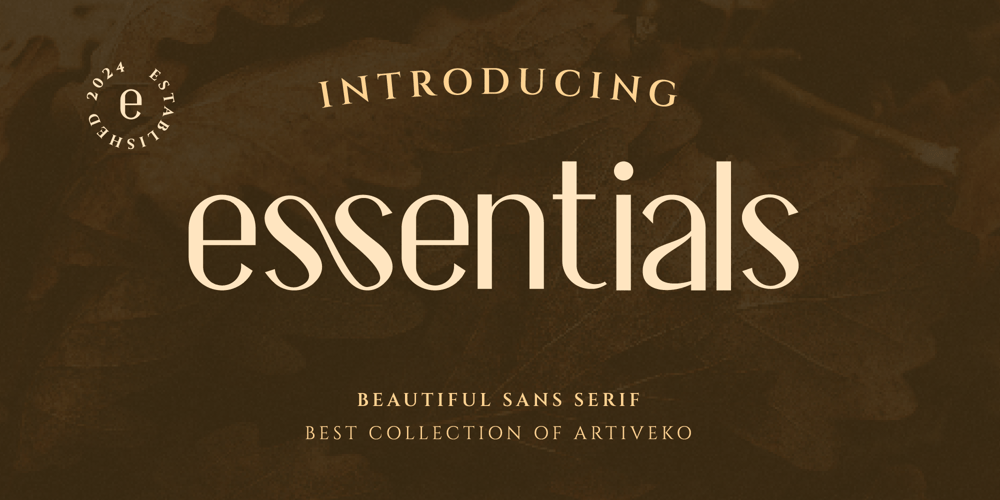
Essentials
Essentials font
Essentials Font Family was designed by Iwan Alwan and published by Artiveko. Essentials contains 2 styles and family package options. Essentials, a captivating sans-serif font meticulously crafted by Iwan Alwan. With its sleek and feminine design, Essentials exudes elegance and sophistication, making it the perfect choice for fashion, cosmetics, and women-centric products.This font boasts a plethora of alternates and ligatures, allowing you to create visually stunning and unique compositions effortlessly. Whether you’re designing a chic clothing line, luxurious skincare brand, or trendy accessories, Essentials adds a touch of refinement and charm to your creations.Elevate your brand identity and captivate your audience with the timeless allure of Essentials font.